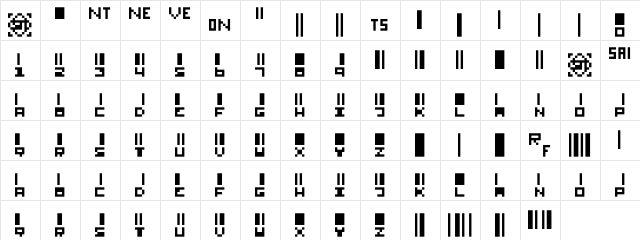
SmallBars Regular
Design Context for SmallBars Typeface
SmallBars is a composed and adaptable typeface that performs quietly and consistently across a wide range of design contexts.